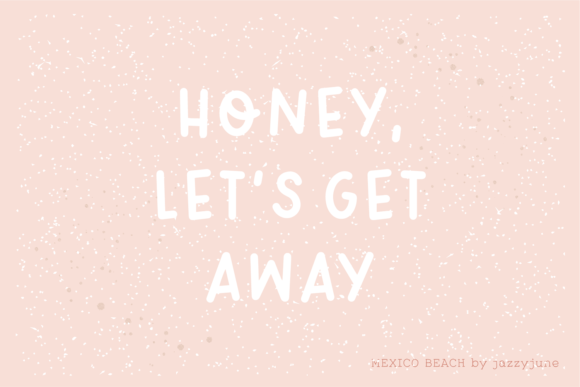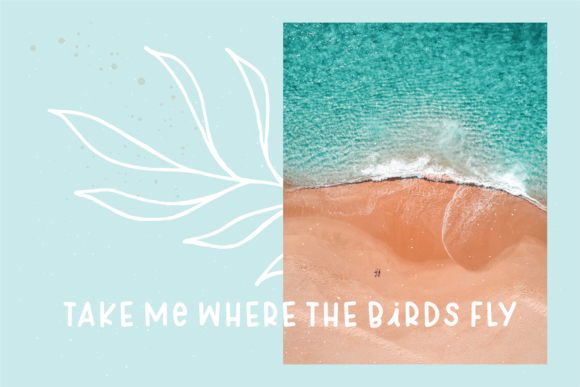
Mexico Beach Font
db-ku.com - Script & Handwritten -- Mexico Beach is a simple and stylish handwritten font. Suitable to a wide variety of designs due to its neat vibe, this font has the potential to become your favorite go-to font, no matter the occasion!